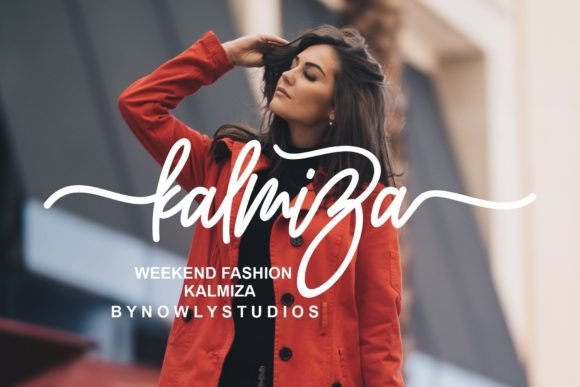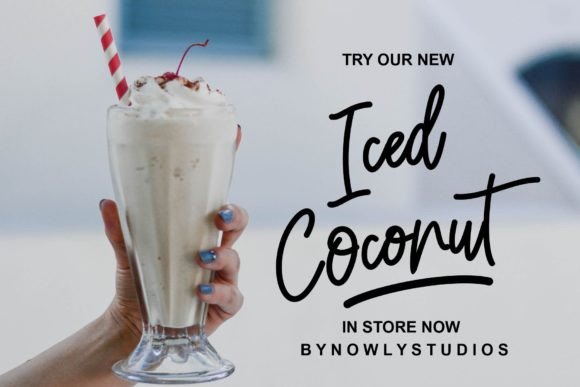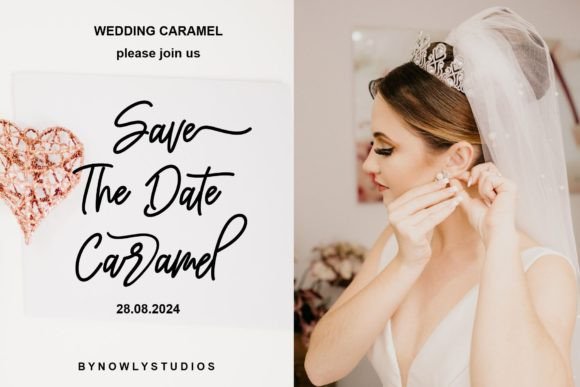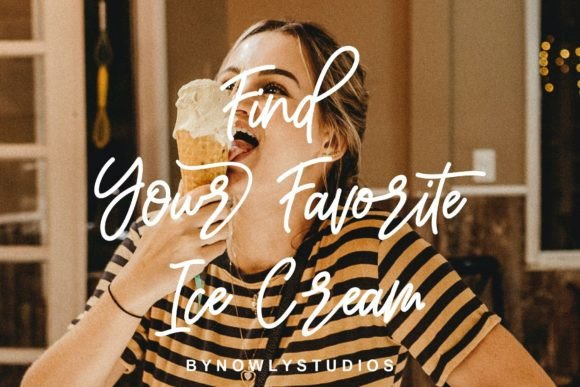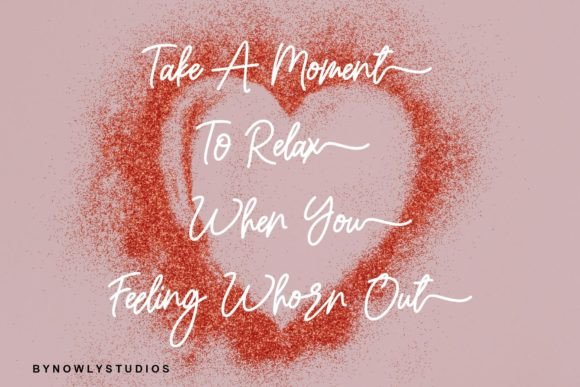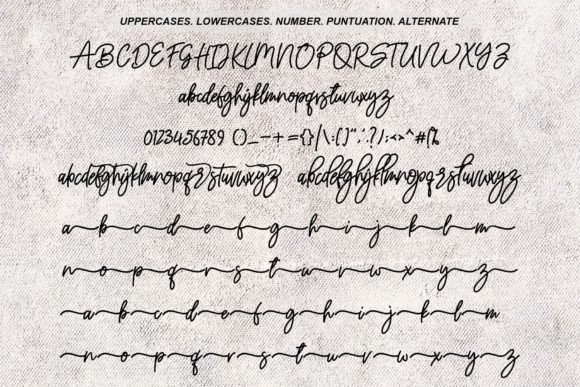
The Elusive Perfect Font: My Journey with Ameliany Signature
I’ll never forget the frustration of working on a design project, hours spent crafting the perfect layout, only to be stumped by one thing: finding the right font. My client wanted something that exuded elegance and sophistication, yet felt approachable and natural. I scoured font libraries, tried out numerous typefaces, but nothing seemed quite right. That was until I stumbled upon Ameliany Signature, a monoline script font that has since become a staple in my design toolkit.
An Honest Review of Ameliany Signature
So, what makes Ameliany Signature so special? Let’s dive into the good stuff and a few quirks I’ve encountered.
- ✨ Smooth Connections: Ameliany Signature boasts a beautifully cursive style, with many characters smoothly connected, giving it a natural, handwritten feel.
- âś… Comprehensive Character Set: This font includes all lowercase and uppercase characters, numbers, punctuation, alternate characters, a range of standard ligatures, and international characters.
- đź’» PUA Encoding: Being PUA encoded means accessing the amazing glyphs and ligatures is a breeze, making your design process much more efficient.
- ⚠️ Learning Curve: With so many features and glyphs at your disposal, there might be a slight learning curve, especially if you’re new to using OpenType features or PUA encoded fonts.
- 🤔 Overuse of Ligatures: While ligatures can add a lot of character to your text, it’s easy to overdo it. A balanced approach is key to maintaining readability and aesthetics.
The Story Behind Ameliany Signature
While the exact story behind Ameliany Signature’s creation might not be well-documented, it’s clear that the designer aimed to create a font that feels both personal and professional. The smooth connections and elegant flow suggest a desire to mimic natural handwriting, bringing a touch of authenticity to digital designs.
Q: What makes Ameliany Signature unique?
A: Its monoline script style with smoothly connected characters gives it a natural, elegant look.
Q: Is Ameliany Signature difficult to use for beginners?
A: While it offers advanced features, its basic use is straightforward. Beginners might need to familiarize themselves with OpenType features and glyphs.